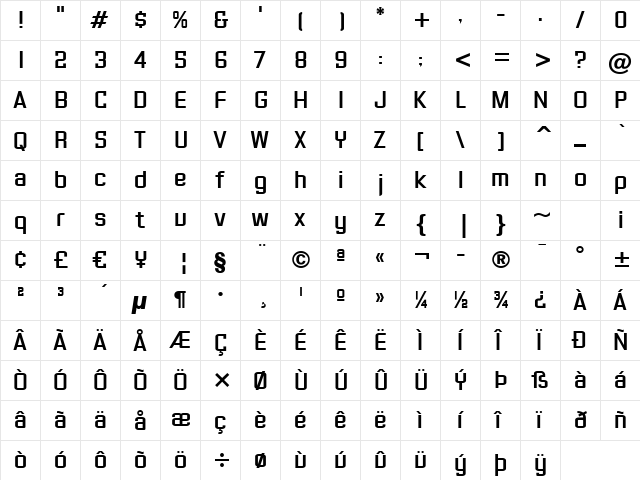
Gasoline Sans BTN Bold
Design Context for Gasoline Sans BTN Typeface
Gasoline Sans BTN offers clean, dependable letterforms without strong stylistic allegiance, making it a practical choice for designers who need flexibility. The heavy weight commands attention and anchors typographic hierarchies.